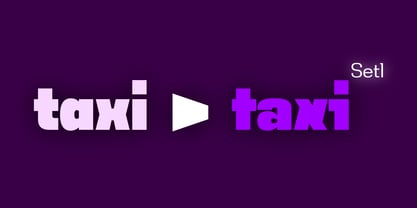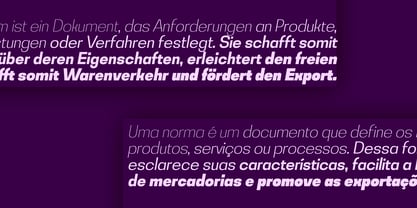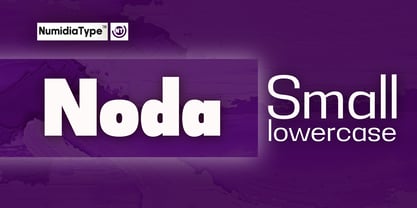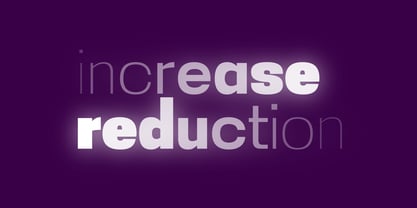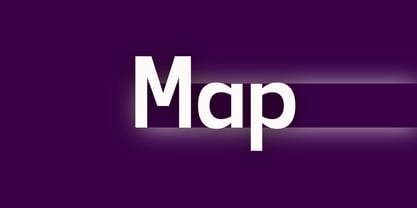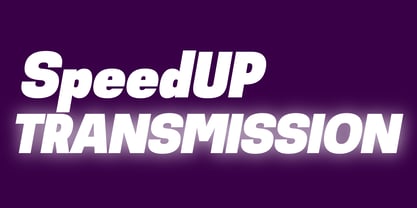
Noda Small
par NumidiaType
La famille de polices Noda Small a été conçue par Yassine Abdi et publiée par NumidiaType. Noda Small contient 16 styles et options de package familial. En savoir plus sur cette famille
Noda ™ S (Small Lowercase) is a contemporary geometric typeface built around a distinctive system of square based letterforms and reduced proportions. Designed entirely in small lowercase characters, it delivers a clean, modern voice with a strong architectural presence. The typeface emphasizes precision and balance through sharp angles, consistent stroke widths, and carefully constructed geometric shapes. Its compact structure and squared contours give it a unique visual rhythm, making it ideal for branding, logos, editorial headlines, posters, packaging, and digital interfaces where clarity and character are equally important. Despite its strict geometric foundation, it's maintains strong readability and a refined personality. The deliberate simplicity of the forms allows it to perform confidently in both minimal layouts and bold typographic statements. Noda Small Lowercase is a versatile scripting and display typeface that combines modern geometry with a distinctive, contemporary aesthetic perfect for designers seeking a clean yet expressive typographic solution.
Concepteurs: Yassine Abdi
Fonderie: NumidiaType